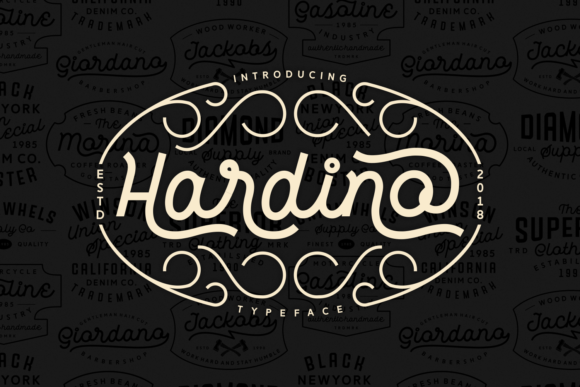
Introducing Hardino Font: The Epitome of Sophistication and Elegance
Step into the realm of exquisite typography with Hardino Font, a mesmerizing script font that will elevate your designs to new heights of beauty and sophistication. Its captivating swirly alternates add a touch of playful elegance, making it the perfect choice for creating stunning logos, branding materials, wedding invitations, and heartfelt personal projects.
Hardino's unique charm lies in its remarkable legibility, a rare trait among script fonts. This versatility allows it to seamlessly adapt to both personal and professional projects, adding a touch of class and sophistication to everything it graces. Whether you're a seasoned designer or a creative enthusiast, Hardino is your gateway to crafting designs that leave a lasting impression.
With Hardino at your fingertips, you'll unlock a world of creative possibilities. Its versatility shines in logo design, where its graceful curves and elegant swashes create a distinctive identity for your brand. Transform your website into a visual masterpiece by incorporating Hardino into your headings and subheadings, captivating your audience with its undeniable charm.
Experience the transformative power of Hardino in your wedding invitations and other special occasion stationery. Its delicate strokes and intricate details add a touch of romance and elegance, making your event truly unforgettable. Let Hardino be your creative companion as you craft heartfelt greeting cards and personalized gifts, infusing them with a touch of warmth and individuality.